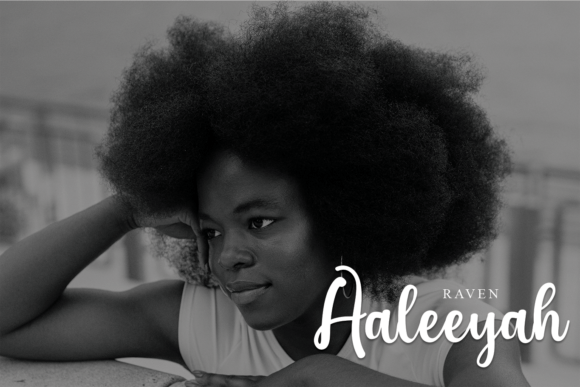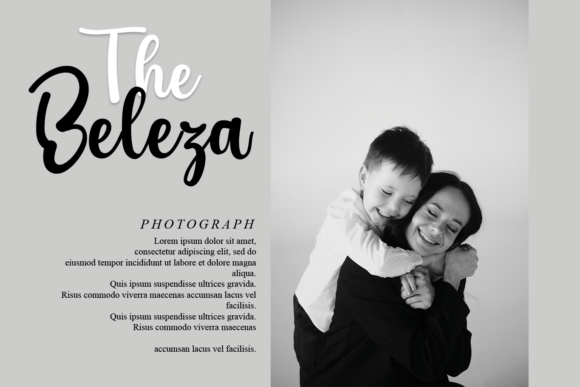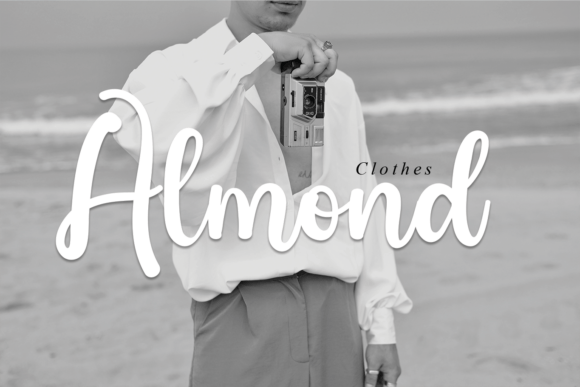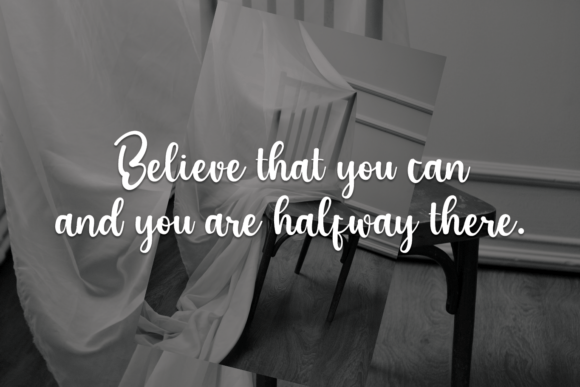
Introducing Christmas Font: The Perfect Choice for Your Design Needs
Are you looking for a font that exudes elegance and sophistication? Look no further than Christmas Font, a beautiful handwritten font that is sure to capture the hearts of designers and crafters alike. With its flowing and graceful lines, Christmas Font is the perfect choice for creating stunning wedding invitations, gorgeous stationery art, eye-catching social media posts, and much more.
The Chic Style of Christmas Font
Christmas Font is a true masterpiece of typography, with a chic style that is both modern and timeless. Its flowing lines and delicate curves make it perfect for designs that require a touch of elegance and sophistication. Whether you’re creating wedding invitations, party decorations, or social media posts, Christmas Font is sure to add a touch of class and refinement to your designs.
One of the best things about Christmas Font is its versatility. With its wide range of applications, you can use it to create a variety of designs, from:
- Party decorations and signage
- Stationery art and greeting cards
- Branding and packaging materials
Whether you’re a designer, crafter, or DIY enthusiast, Christmas Font is the perfect choice for any project that requires a touch of elegance and sophistication.
Why Choose Christmas Font?
So why choose Christmas Font over other fonts? Here are just a few reasons:
- Unique and eye-catching: Christmas Font is a truly unique and eye-catching font that is sure to stand out from the crowd.
- Elegant and sophisticated: With its flowing lines and delicate curves, Christmas Font exudes elegance and sophistication.
- Versatile: Christmas Font can be used for a wide range of design applications, from wedding invitations to social media posts.
Tips for Using Christmas Font
Here are a few tips for using Christmas Font in your designs:
- Pair it with bold colors: Christmas Font looks stunning paired with bold, bright colors. Try pairing it with red, green, or gold for a festive look.
- Use it for headings: Christmas Font is perfect for headings and titles, where its elegant lines and curves can really shine.
- Experiment with sizes: Don’t be afraid to experiment with different font sizes to create visual interest and hierarchy in your designs.
In conclusion, Christmas Font is a beautiful and versatile handwritten font that is perfect for designers and crafters looking to add a touch of elegance and sophistication to their designs. With its flowing lines, delicate curves, and wide range of applications, Christmas Font is sure to become a favorite in your design arsenal. So why wait? Download Christmas Font today and start creating stunning designs that will leave a lasting impression.